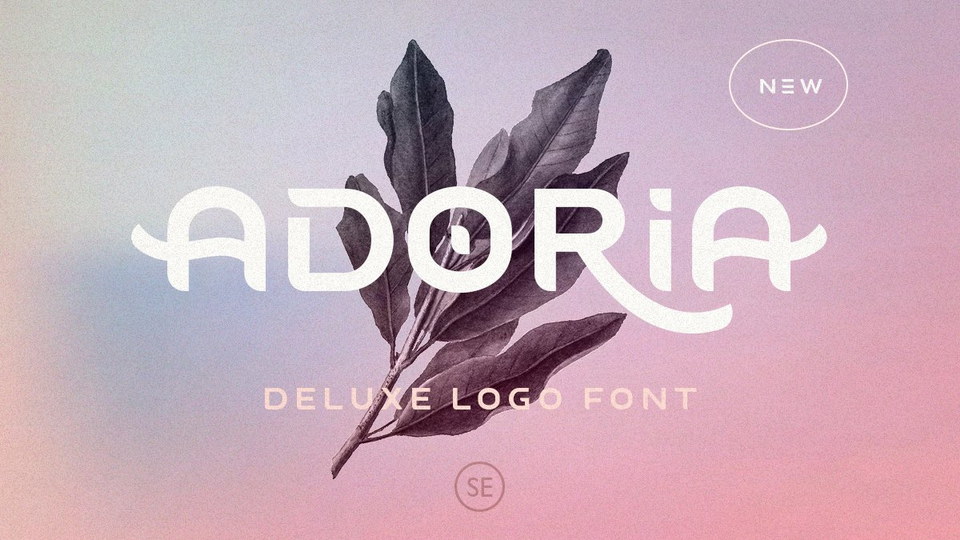
Adoria Font
Adoria is a minimalist logo font with unique edges that will make your logo and design looks more simple and modern. The font is ideal for display use, especially to make logotype or poster artwork.